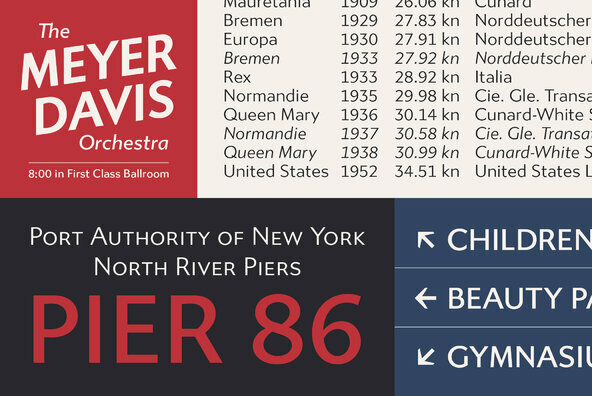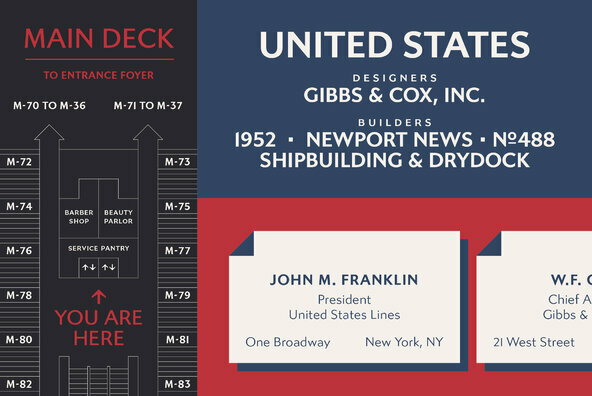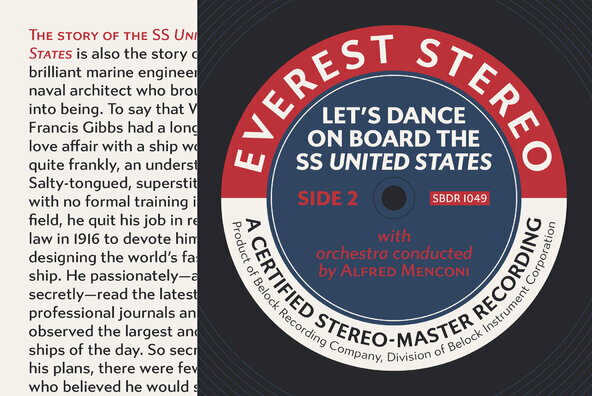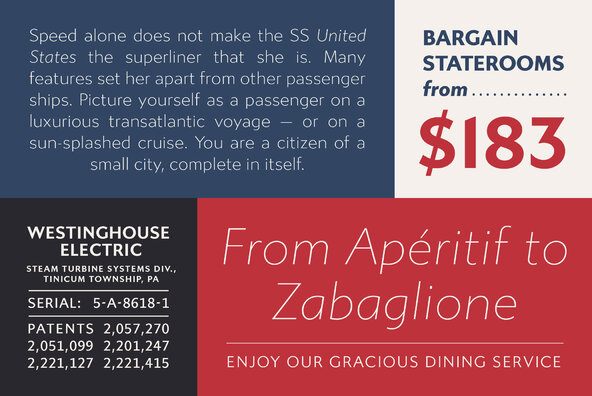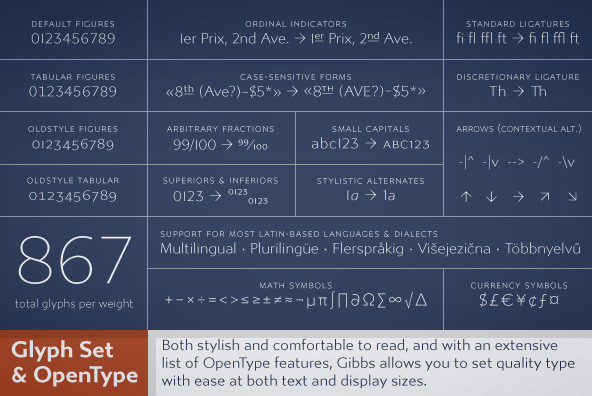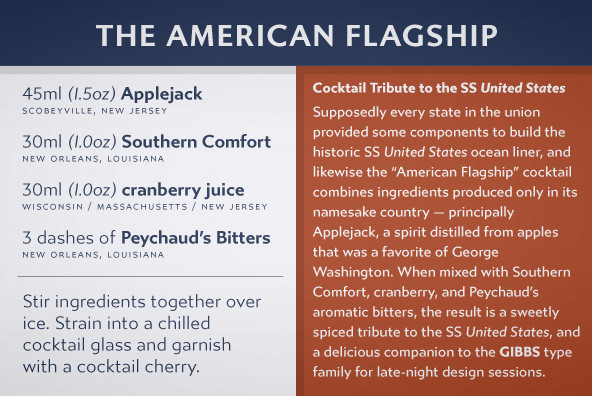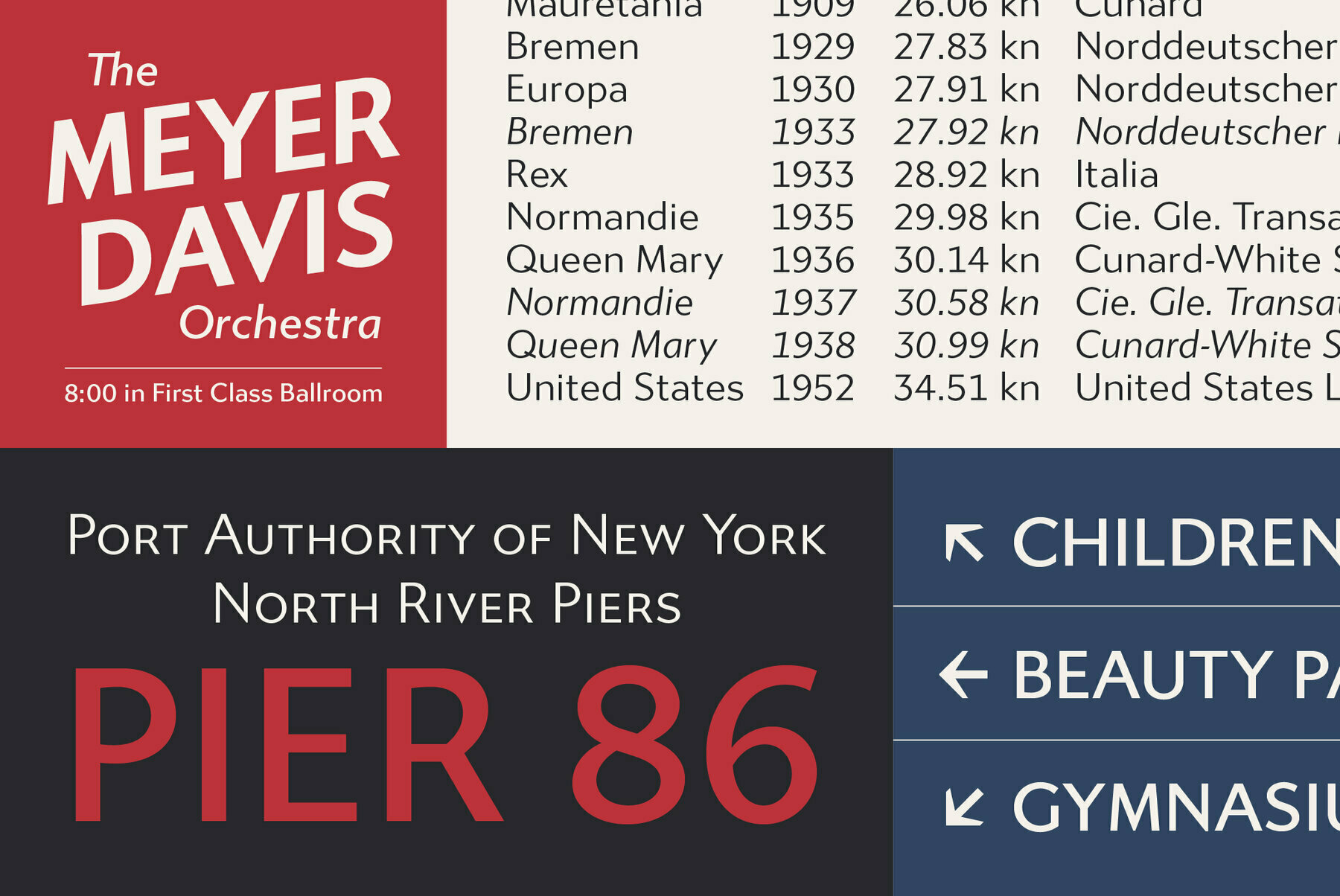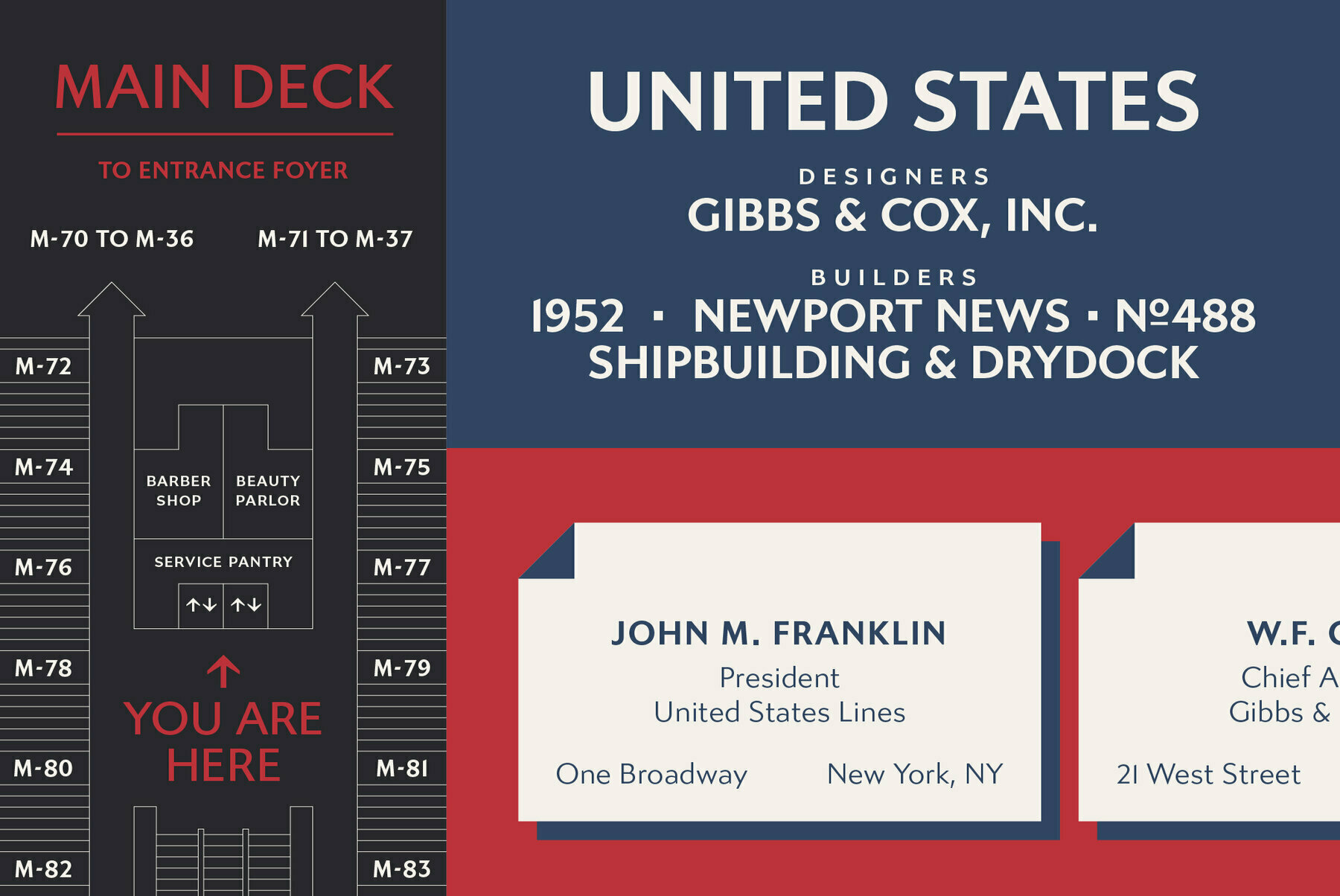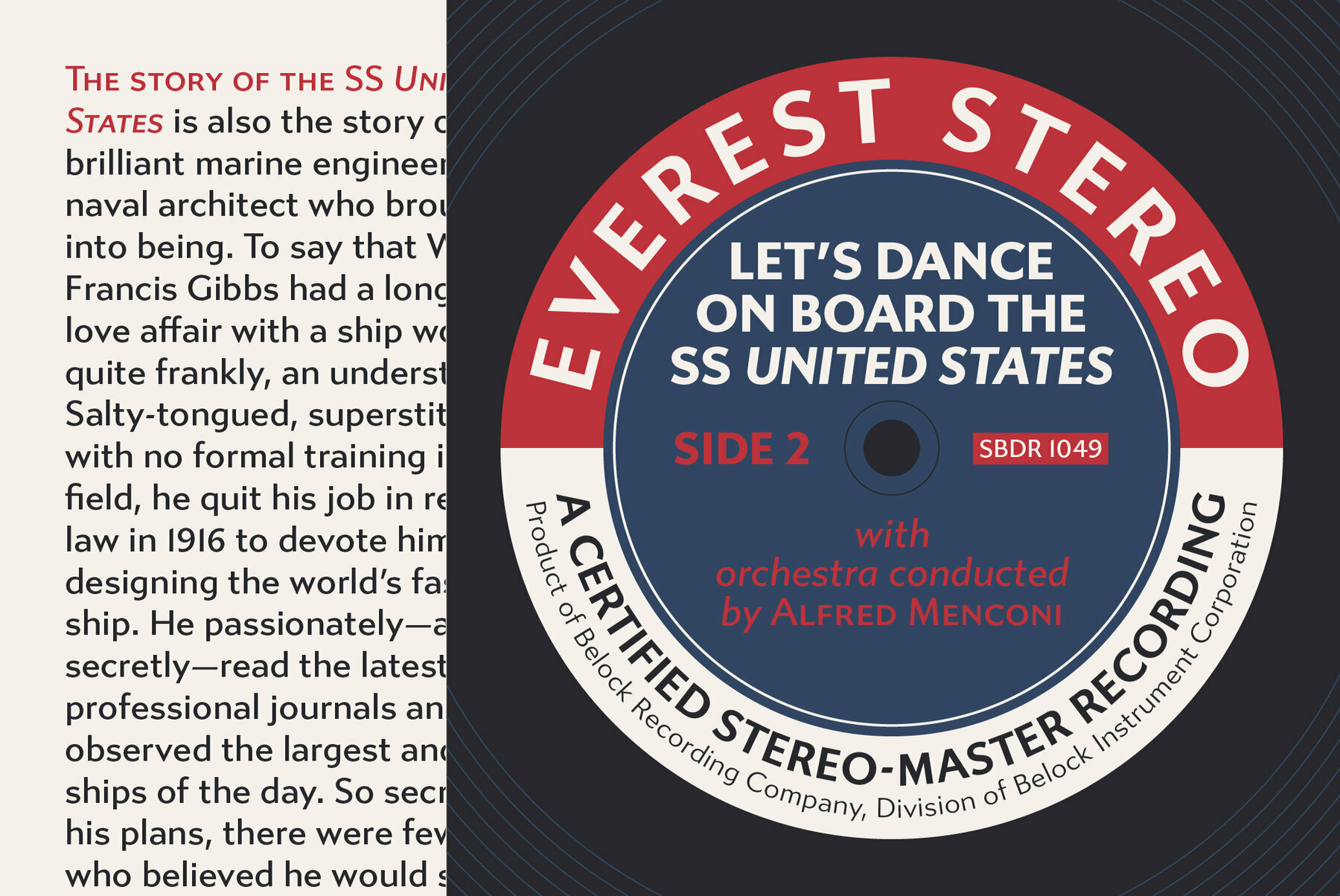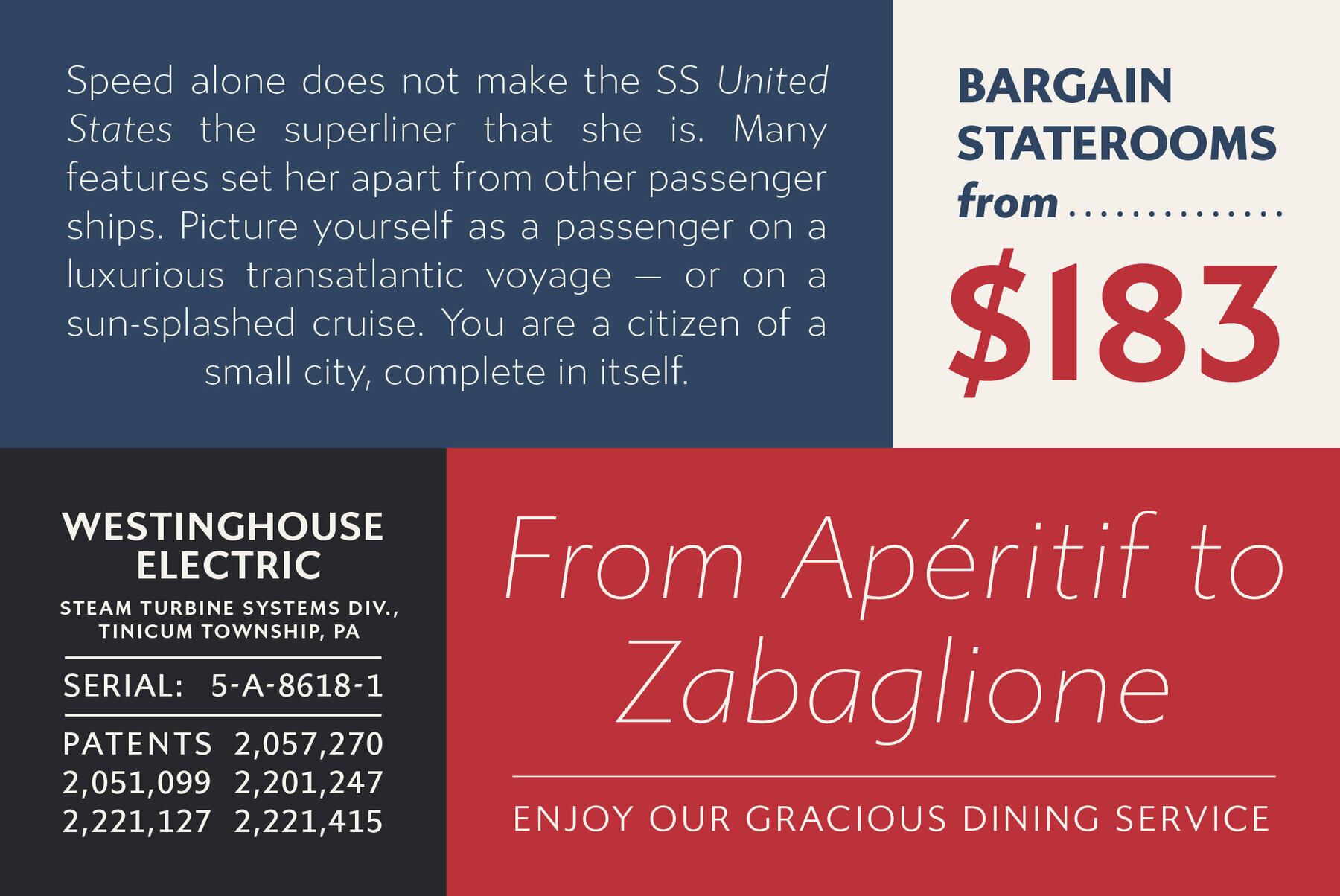
Gibbs Font
Gibbs is a tough, sophisticated sans, named for prolific maritime architect William Francis Gibbs and inspired by his greatest design, the record-breaking mid-century luxury liner SS United States. Taking various cues from the unique cast aluminum signs found on board, the result is truly transatlantic — somewhere in between industrial American vernacular lettering and the English humanist styles of Gill or Johnston. Both stylish and comfortable to read, and with an extensive list of OpenType features, Gibbs allows you to set quality type with ease at both text and display sizes.
Built in 1952, the beautiful United States was the most revolutionary ship in the world when new. After a flawless 17-year career, she now sits unused and is in danger of scrapping. Her current owner, the non-profit SS United States Conservancy, wishes to restore the ship as a vibrant waterfront development and museum for future generations to enjoy for decades to come.